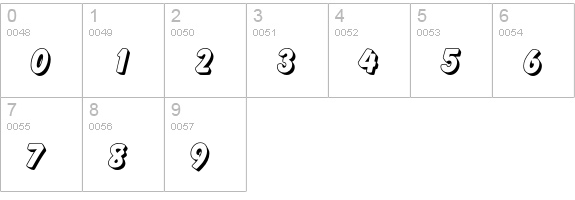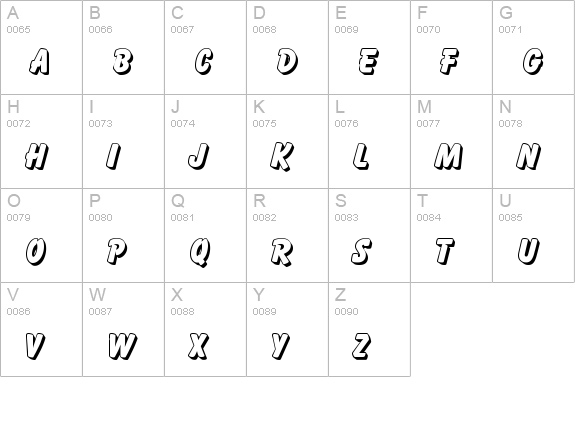
BalloonEF-DropShadow Font Details
BalloonEF-DropShadow is a playful and whimsical font that adds a touch of fun to any design project. The unique drop shadow effect gives the letters a three-dimensional look, making them pop off the page. This font is perfect for creating eye-catching titles, headlines, or signage that will capture the attention of your audience. Best of all, BalloonEF-DropShadow is completely free to use! You can download this fantastic font at FontsMarket.com and start incorporating it into your designs today. Let your creativity soar with BalloonEF-DropShadow and make your projects stand out from the crowd.